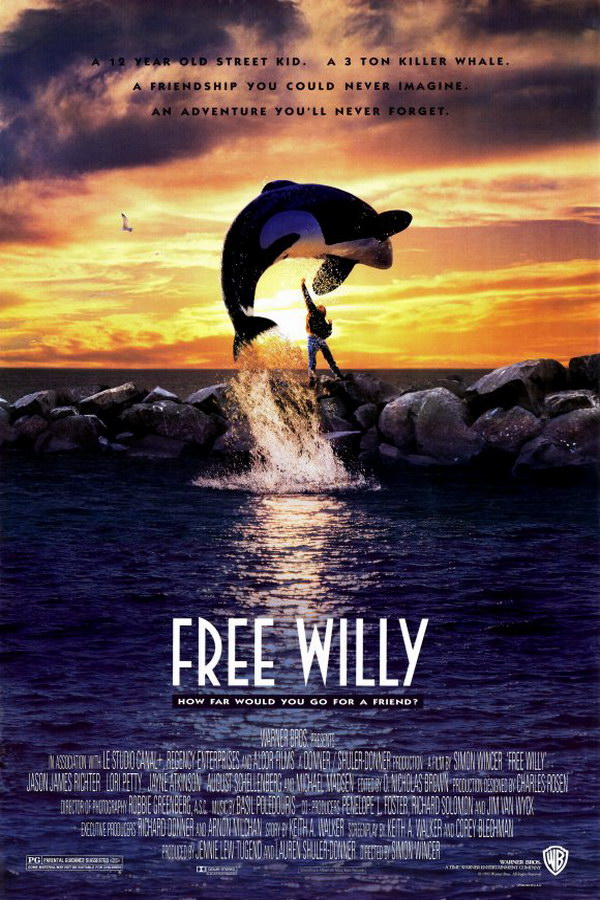
Free Willy Font
FamilyFree Willy is a 1993 family film about a young boy named Jesse who forms a bond with a captive Orca whale and tries to help set it free.
The movie poster features the title ''Free Willy'' in the Newport Classic SG Regular font. Created by Willard T. Sniffin in 1932, this font boasts an art deco style with compact descenders.